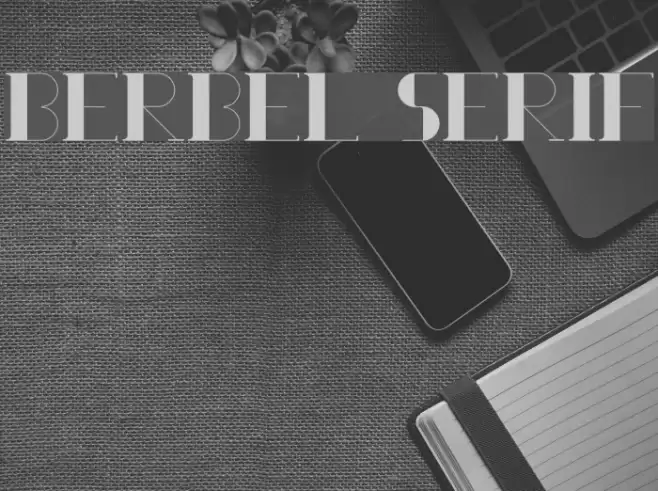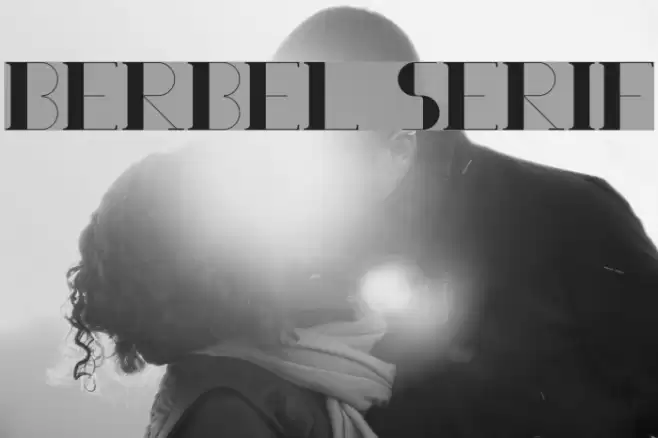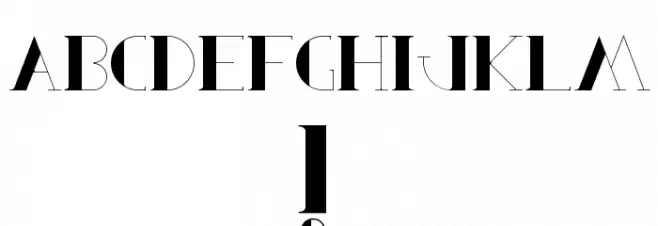
Berbel Serif Font
Berbel Serif Description
This font features a striking contrast between thick and thin strokes, creating a dynamic and modern appearance. The uppercase letters are characterized by bold vertical lines and delicate, thin horizontal lines, giving them a unique and artistic flair. The design is geometric, with sharp angles and clean lines, making it stand out in any design project. The lowercase letters maintain the same contrast and geometric style, ensuring consistency throughout the typeface. The numerals and special characters are designed with the same attention to detail, offering a cohesive look. This font is ideal for projects that require a contemporary and bold statement.
A modern, geometric font with high contrast and bold, artistic strokes from Uncategorized fonts.
- Proposed Projects: Ideal for branding, advertising, posters, and editorial design where a modern and bold statement is needed.